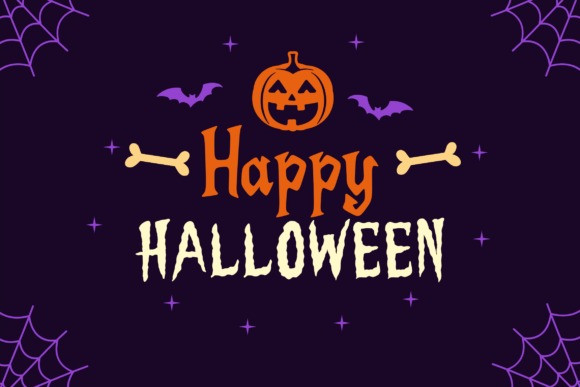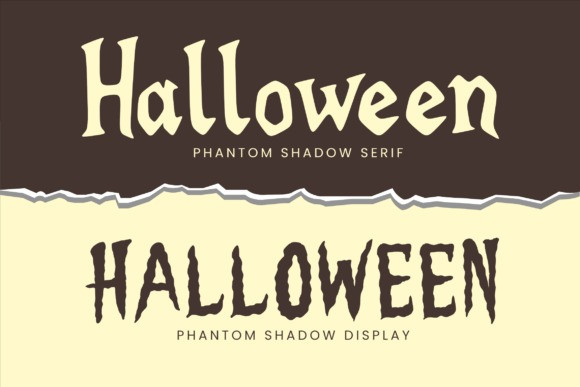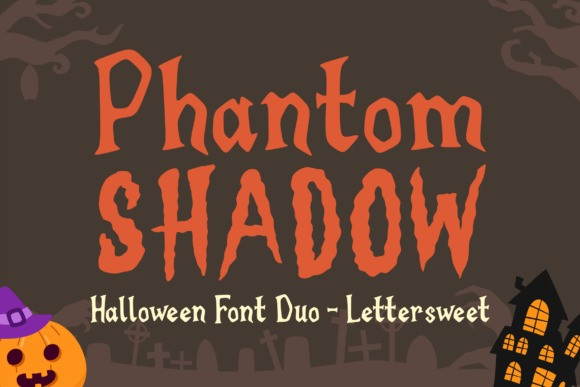
Phantom Shadow Font
Phantom Shadow Font is a spooky Halloween font duo designed to bring eerie charm and bold style to your projects. Perfect for haunted party invitations, creepy posters, scary movie titles, logos, and seasonal crafts, the Phantom Shadow typeface combines playful yet chilling vibes. With jagged strokes and ghostly details, Phantom Shadow adds instant fright-night magic to any design.
A must-have font for crafters, designers, and anyone who loves Halloween spirit!